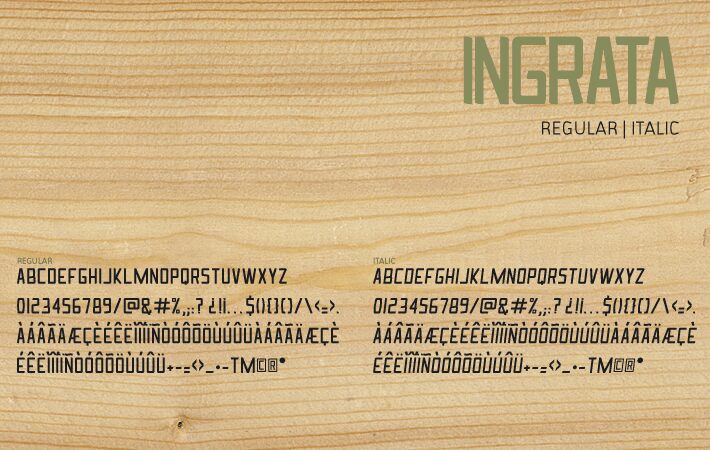
Ingrata Italic, designed by Elvis H. Martuchelli of a Falange estúdio, is a free condensed italic sans serif with a hard, fast silhouette. Tall caps lean sharply forward, cut with squared corners and diagonal joins.
Speed, competition, and industrial themes suit its compressed stance, making it useful for motorsport branding, event posters, and game graphics. In editorial design, it can turn a sports magazine cover line into part of the action rather than neutral lettering.